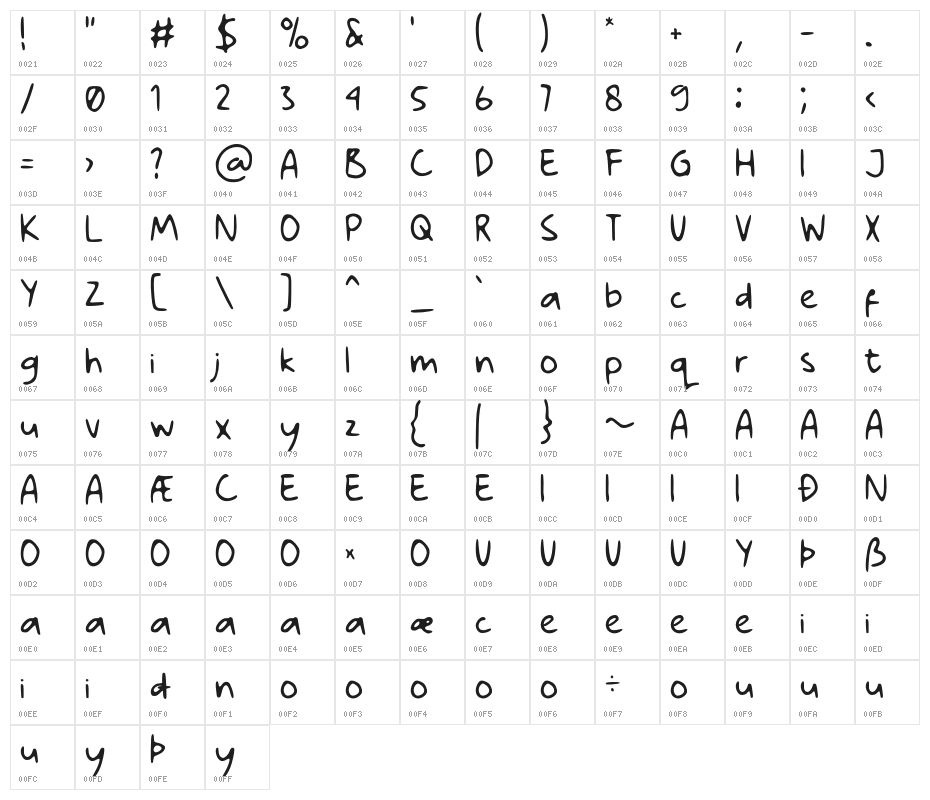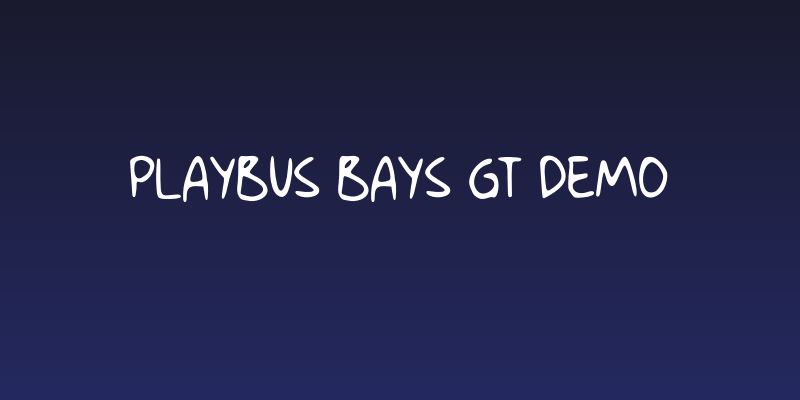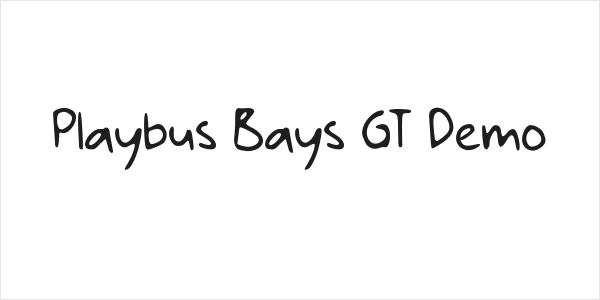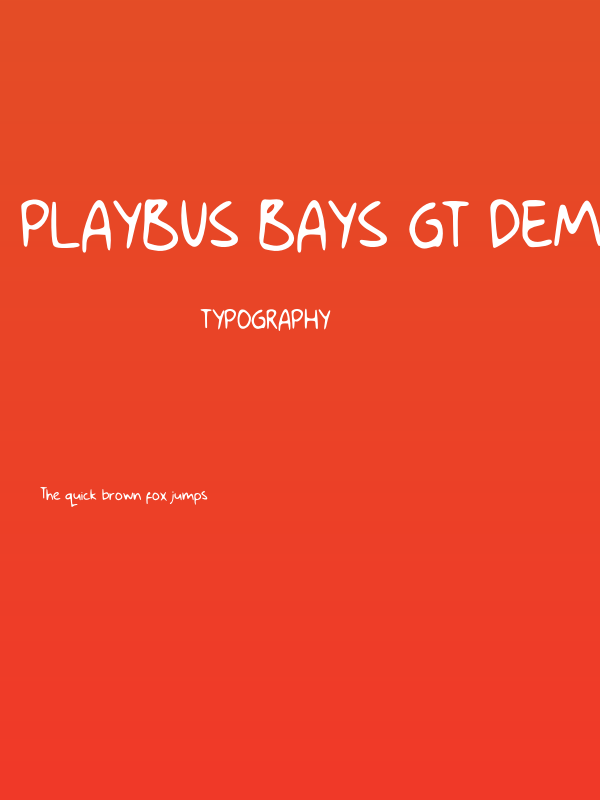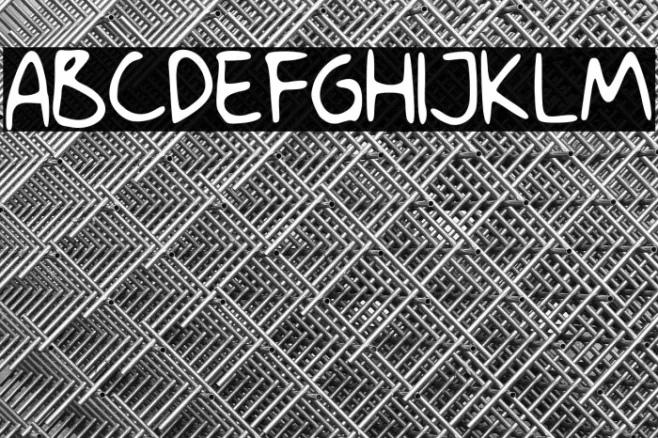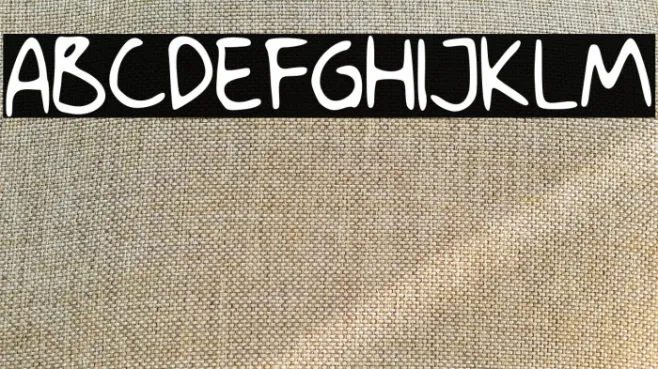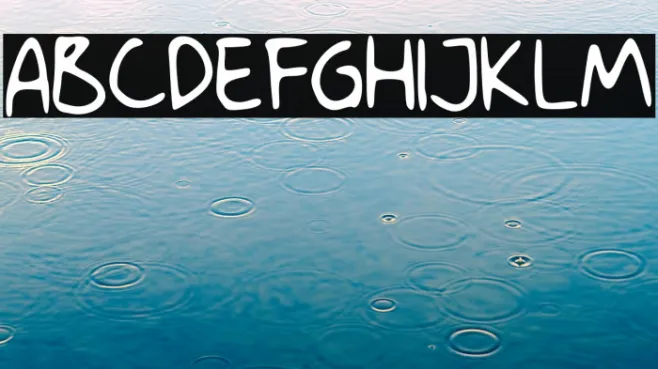
Playbus Bays GT Demo Font
Playbus Bays GT Demo Description
This playful and whimsical font features a hand-drawn style with irregular, rounded edges, giving it a casual and friendly appearance. The characters are slightly uneven, adding to the charm and informal feel of the typeface. It includes both uppercase and lowercase letters, numerals, and a variety of special characters. The strokes are consistent in thickness, providing a uniform look while maintaining a lively and energetic vibe. This font is perfect for projects that require a fun and approachable aesthetic, such as children's books, playful branding, or creative posters.
| Proposed Projects | Ideal for children's books, playful branding, creative posters, and informal invitations. |